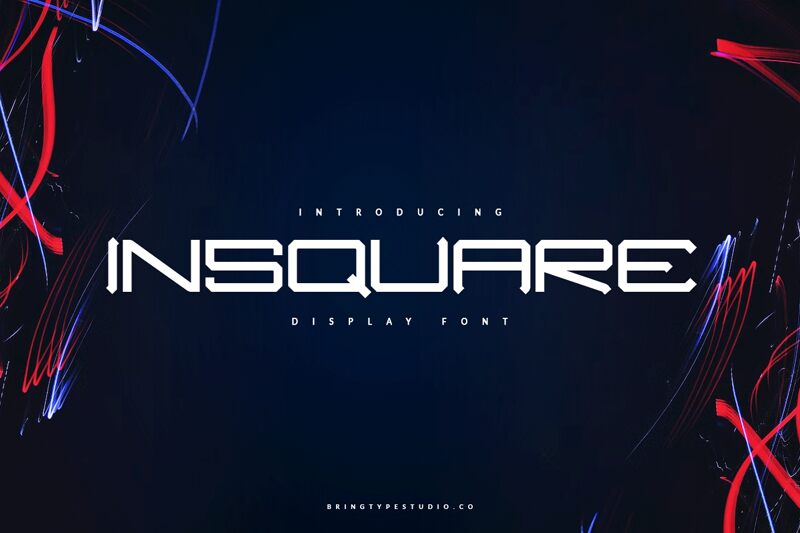
INSQUARE
Insquare emerges as a striking display font with a distinctly techno vibe, crafted by the creative minds at bringtypestudio.co. The characters boast an expanded presence, making a bold statement that captures attention with its futuristic flair. The sharp geometric lines and angles give it a cutting-edge look that seems to echo the digital age's aesthetic.
Perfect for projects requiring a modern touch, Insquare can elevate branding, headline typography, and promotional materials where distinctiveness is key. Its expansive style is particularly suited for tech-oriented designs or any context that demands an impactful visual punch.